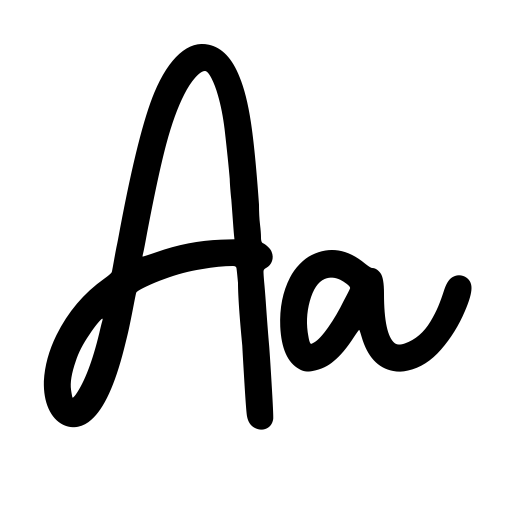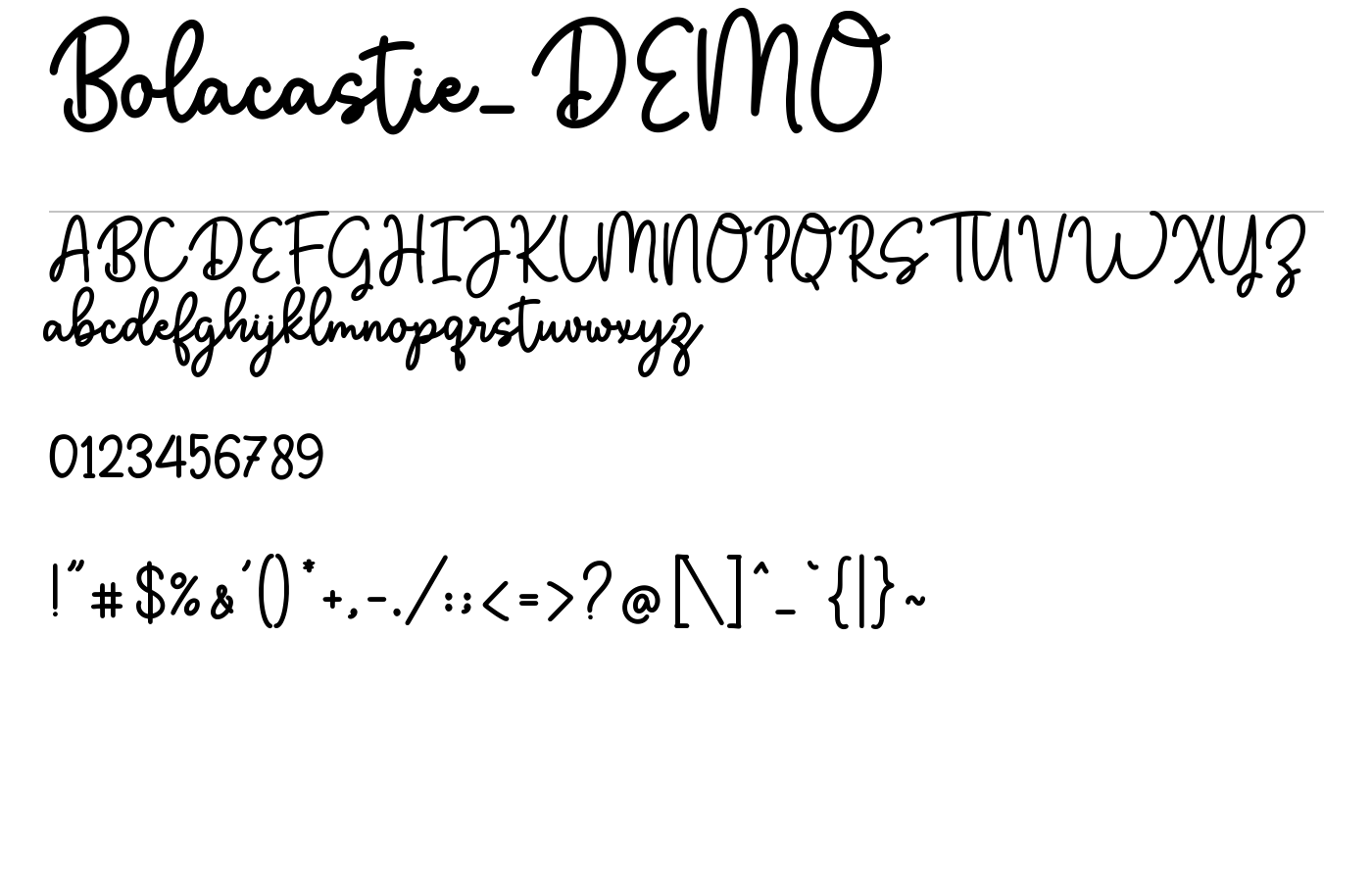
Bolacastie_DEMO is a playful, handwritten script font with a casual and friendly vibe. Its rounded, smooth strokes and slightly tall x-height make it highly legible and inviting, perfect for adding a personal, approachable touch to creative projects, branding, and informal headlines. This font works well for lifestyle blogs, greeting cards, and fun, modern designs that benefit from a charming, hand-drawn feel.
Bolacastie_DEMO Font
About Bolacastie_DEMO Font